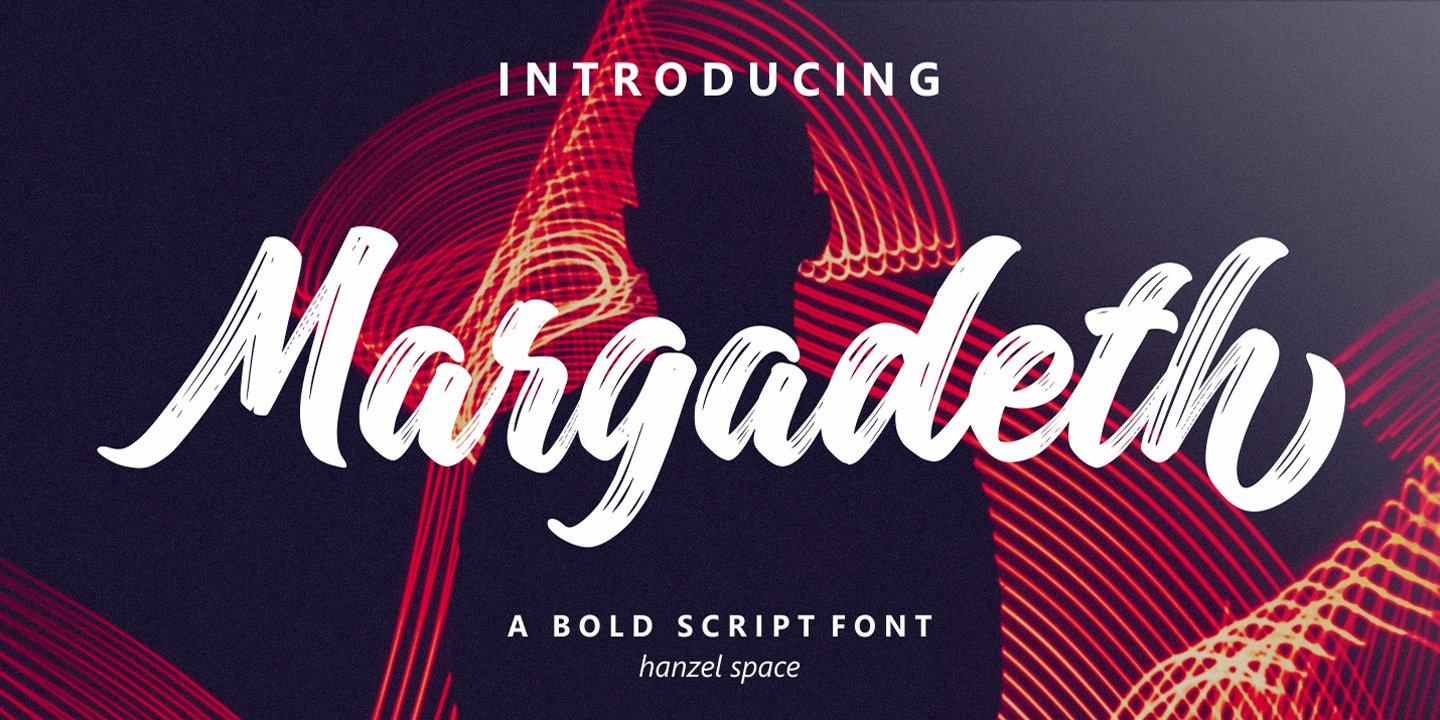
The Margadeth Font is incredibly versatile, making it a powerful choice for a wide range of design projects that demand a sense of strength, clarity, and often a distinctly modern or even slightly rugged aesthetic. Imagine it commanding attention on automotive branding, adding a powerful and direct feel to headlines in a tech magazine, or defining the bold visual identity for a sports event. It's also perfect for crafting unique logos that convey resilience and innovation, designing striking posters for action films, or enhancing the visual appeal of packaging for contemporary products. Its often robust, slightly condensed, or confidently structured letterforms make it ideal for anything that needs to communicate durability, efficiency, and a forward-thinking, impactful presence.
What makes the Margadeth Font so exciting is its ability to instantly infuse any design with a burst of contemporary power and undeniable professionalism. It's not just a typeface; it’s a visual anchor that grabs attention and delivers your message with unmistakable force. Its unique letterforms, often characterized by a sturdy build and a confident presence, stand out, offering a refreshing departure from more delicate or traditional fonts. This font provides a solid, impactful visual texture that adds depth, gravitas, and an undeniable sense of modern authority to any design, ensuring your message is not just seen, but truly felt with a decisive impact.
The Margadeth Font family often includes various stylistic options to enhance its versatility for creative applications. While specific variations can differ, you can typically expect to find regular, bold, and possibly even outline or condensed versions, each maintaining the core robust and assertive aesthetic. Some variations might also feature unique alternate characters or ligatures that play with its distinctive forms, further emphasizing its powerful appeal and providing ample creative freedom for impactful display uses, especially where a strong, immediate visual connection is desired.